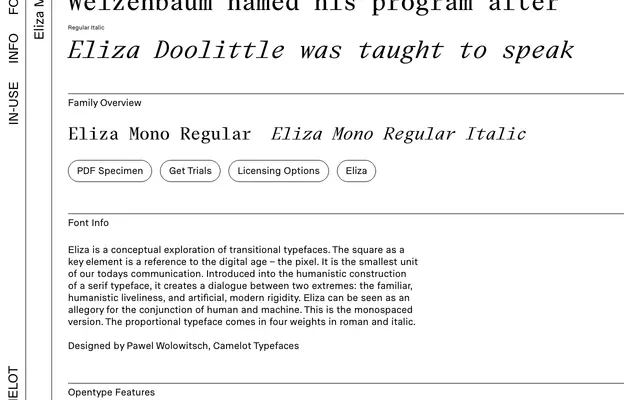
Eliza Mono
Camelot · Pawel Wolowitsch
Eliza Mono specimen from Camelot
A monospaced companion to Eliza, introducing square pixel-like terminals into a humanist serif skeleton to create tension between organic warmth and digital rigidity.
Designed by Pawel Wolowitsch, Eliza Mono applies a conceptual framework borrowed from transitional serif construction, then disrupts it with squared terminals referencing the pixel as the base unit of digital communication. The result sits between humanist legibility and machine regularity, available in a single weight with a matching italic. The proportional Eliza family extends to four weights, making this the fixed-width counterpart for coding or tabular contexts.
A monospaced serif with humanistic construction disrupted by square, pixel-like terminals — sits clearly in the mono category with a transitional serif basis made rigid by digital geometry.